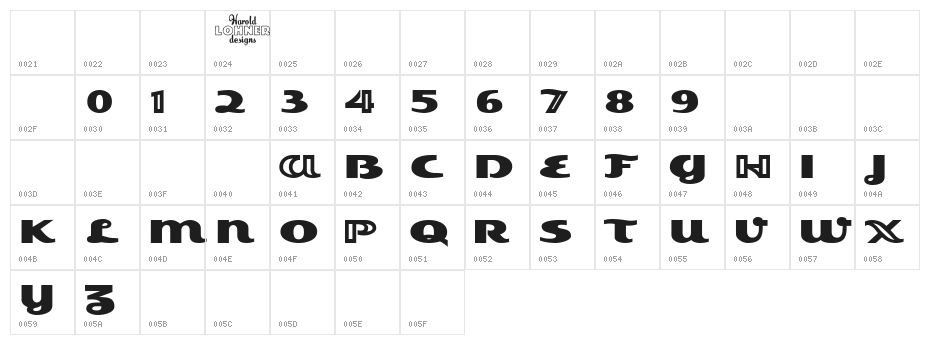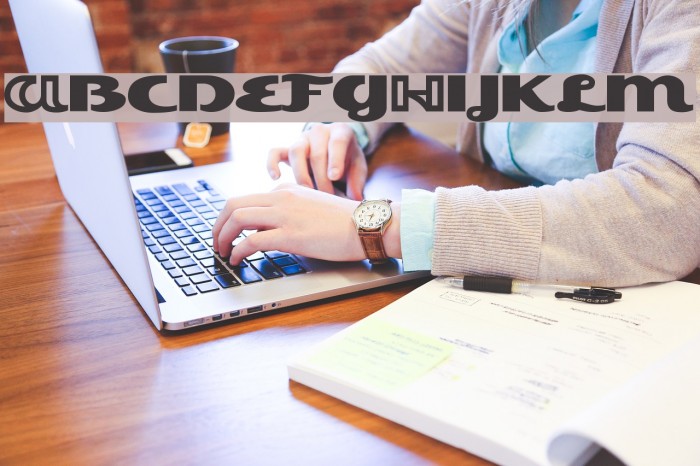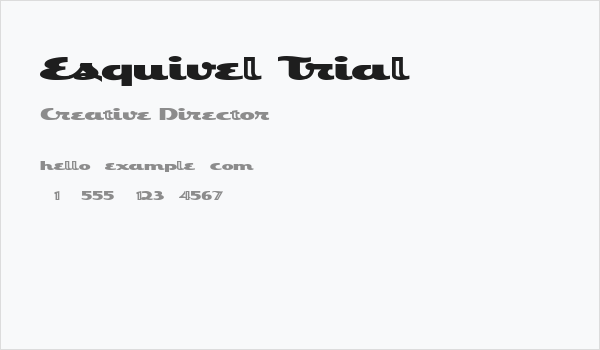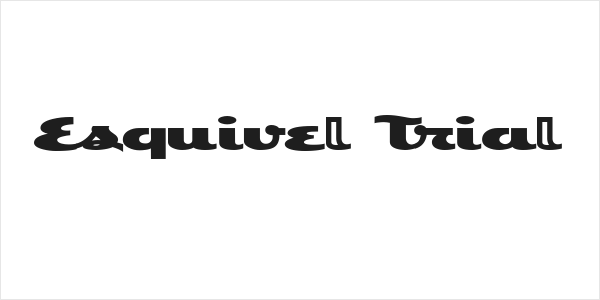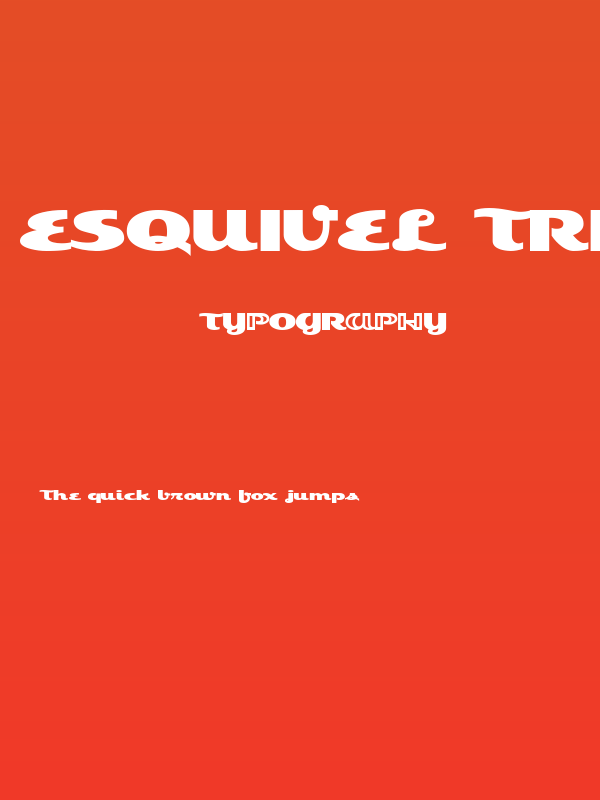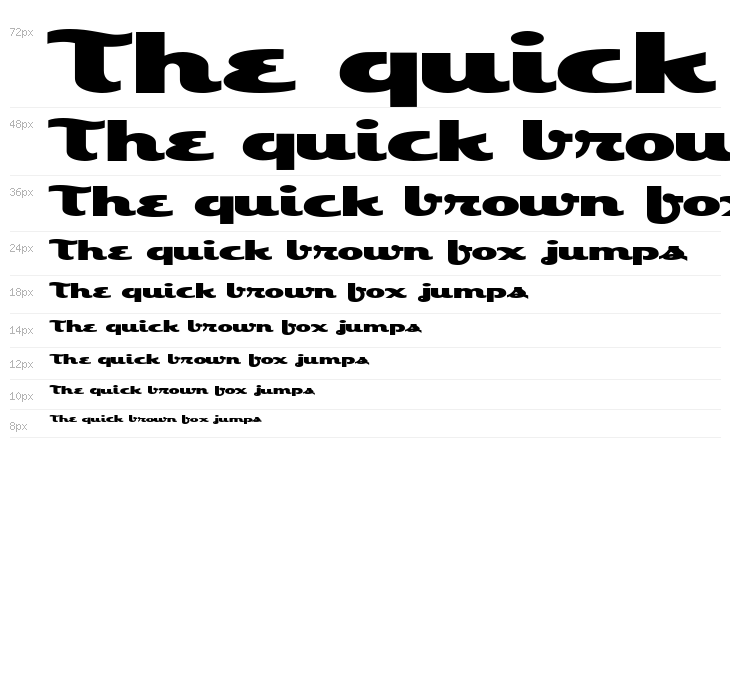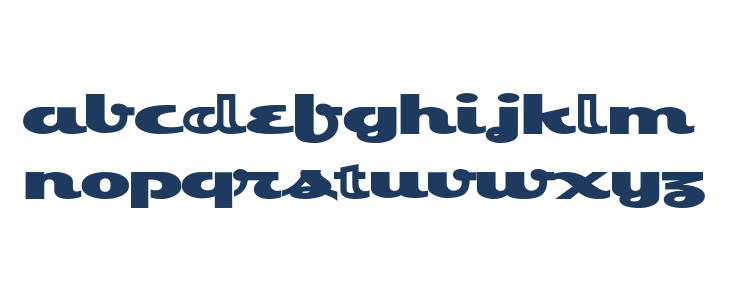
Esquivel Trial Font
Esquivel Trial Description
This font features a bold and playful design with a unique blend of geometric shapes and curves. The uppercase letters are characterized by thick, rounded strokes and distinctive cutouts, giving them a modern and artistic flair. The lowercase letters maintain this style, with some characters exhibiting quirky, unexpected angles. The numerals are bold and consistent with the overall aesthetic, making them stand out. This font's style is both eye-catching and versatile, suitable for a variety of creative applications.
| Proposed Projects | Ideal for branding, poster design, and creative advertising campaigns. |